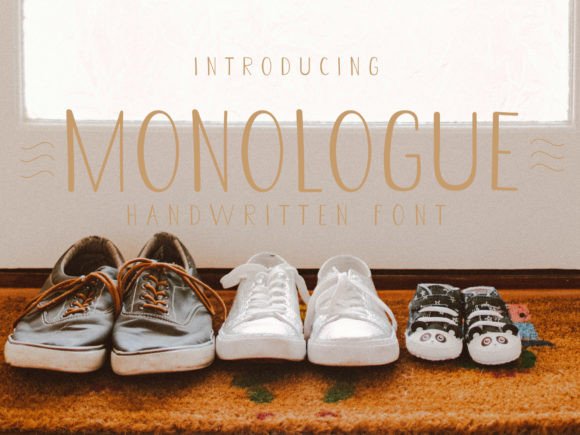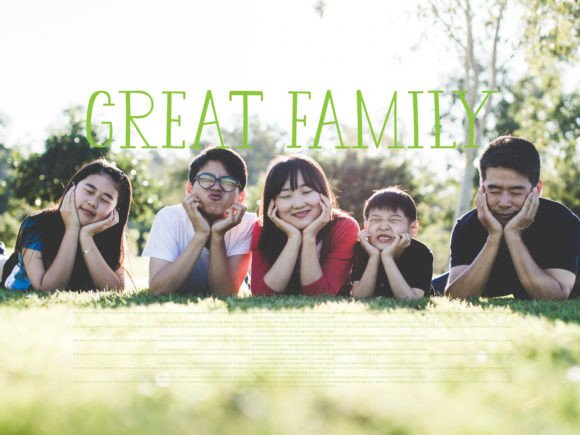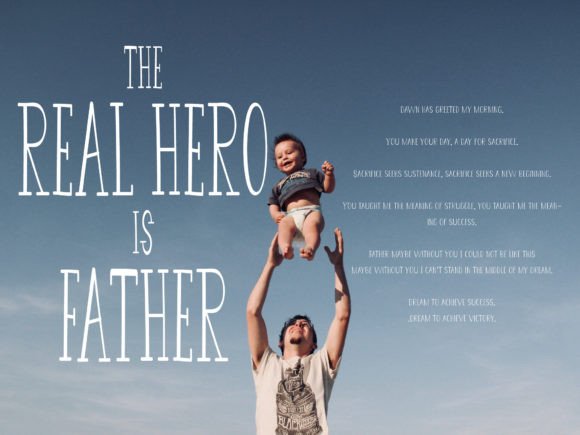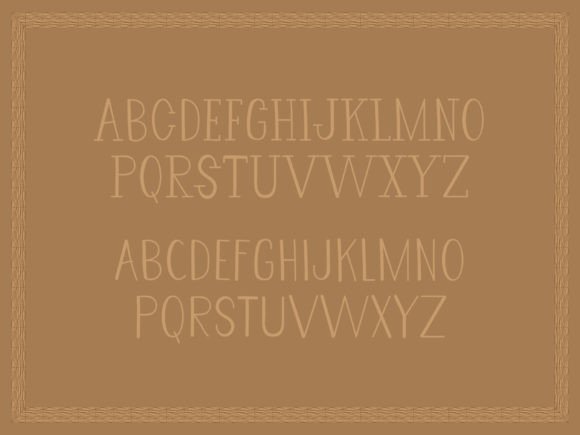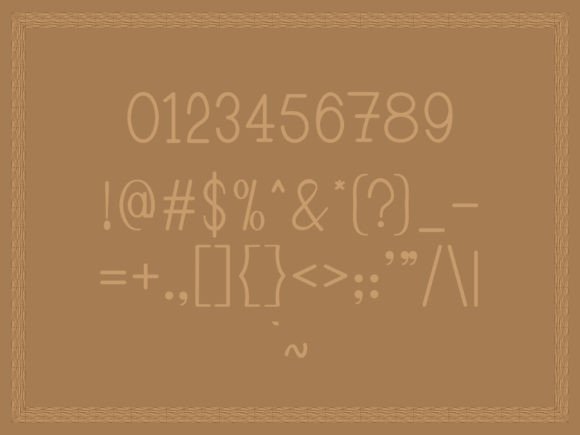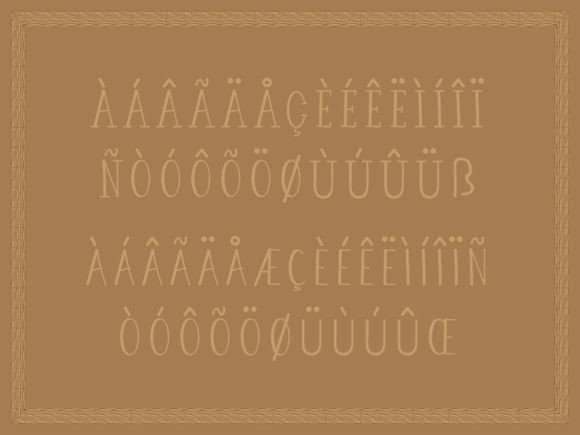
Monologue
Monologue is a simple and unique display font. So perfect for you who needs a typeface for logo designs, magazine, social media, brochure, and many more.